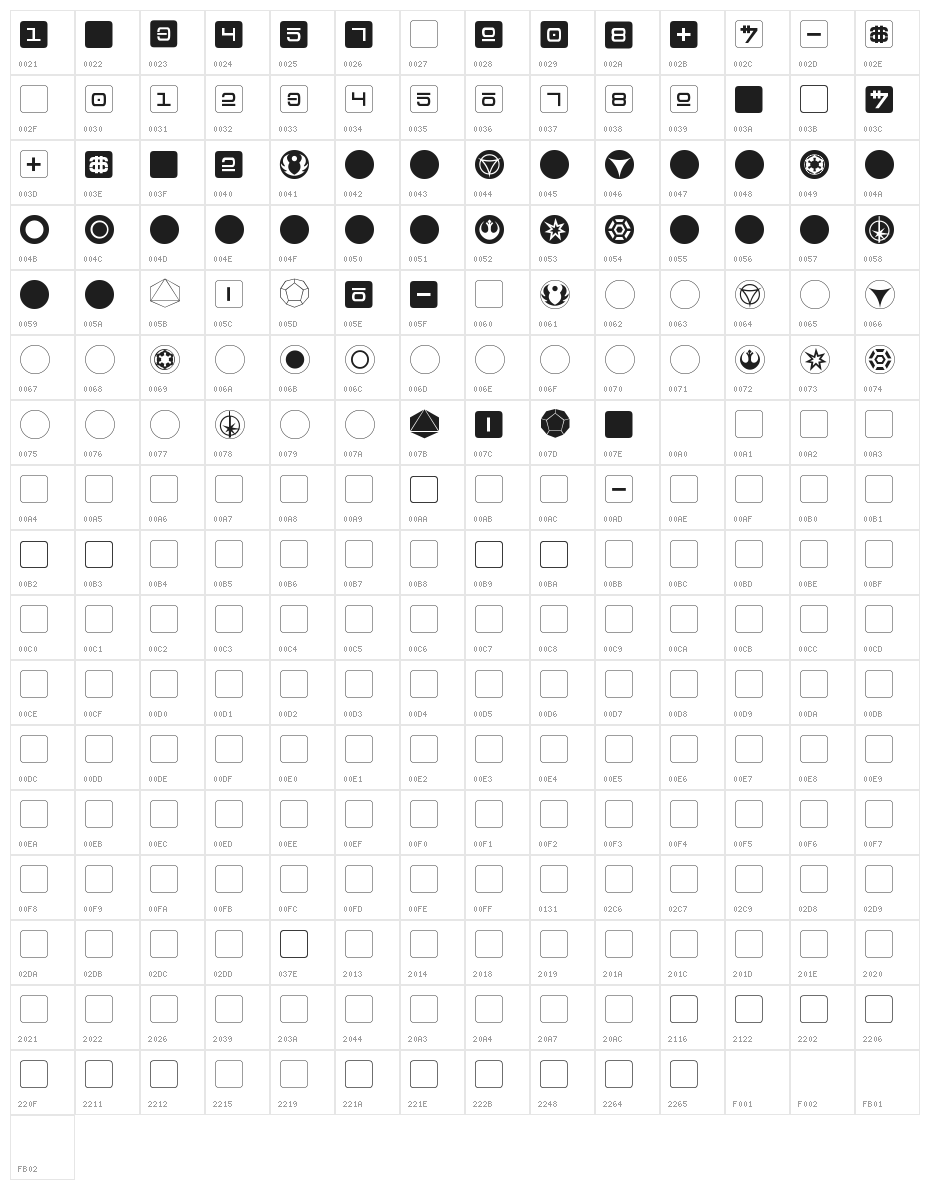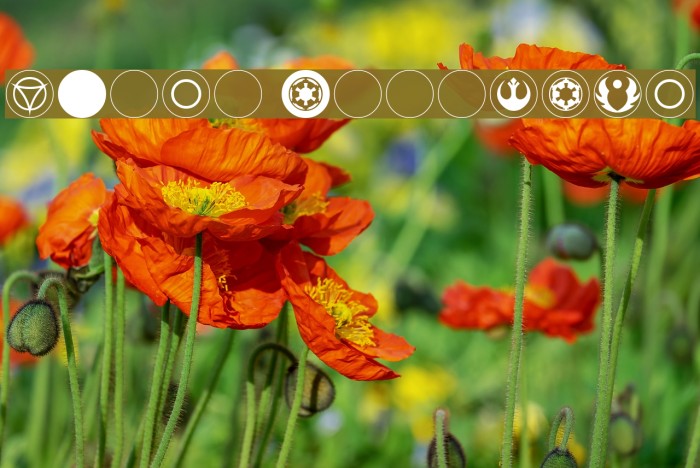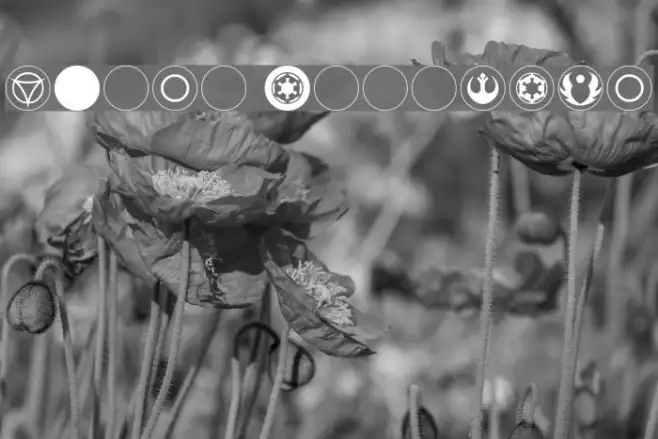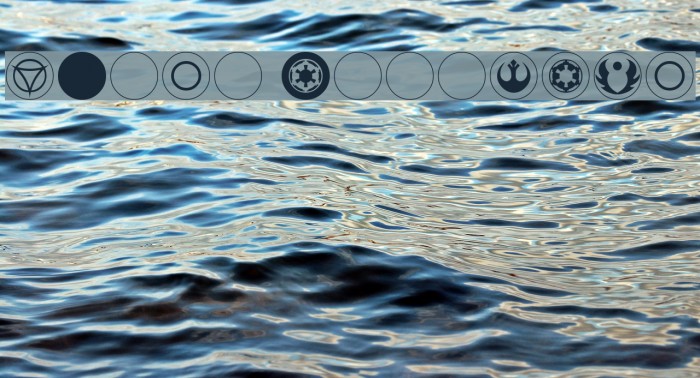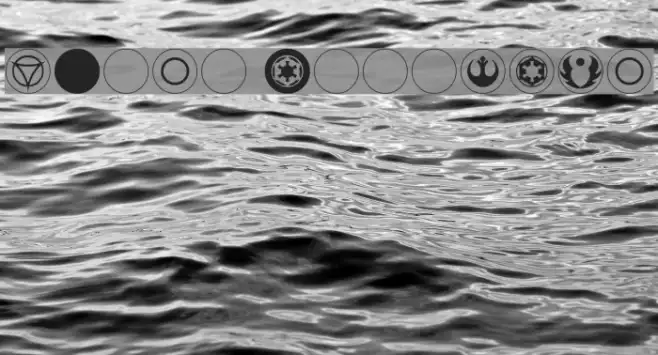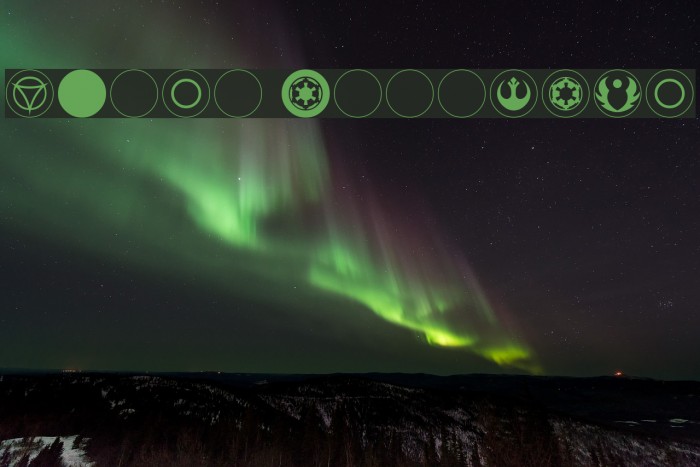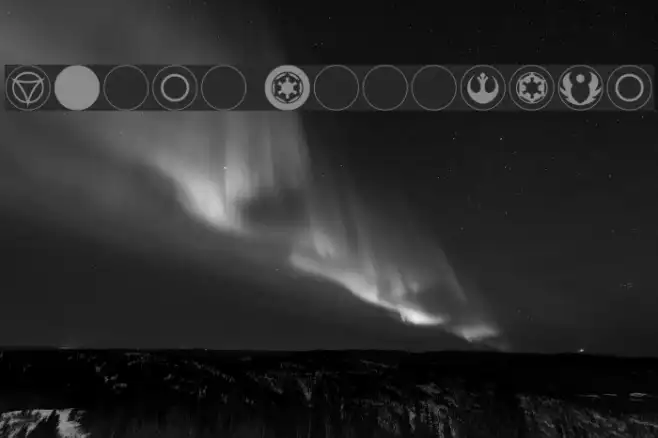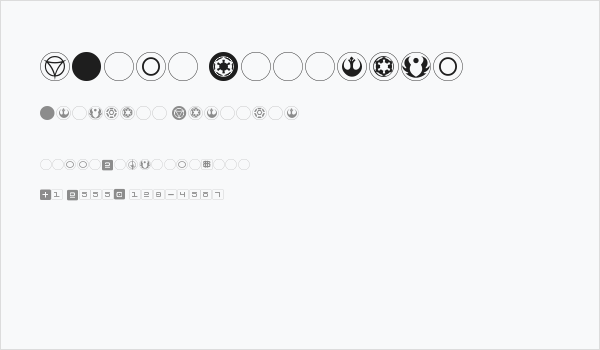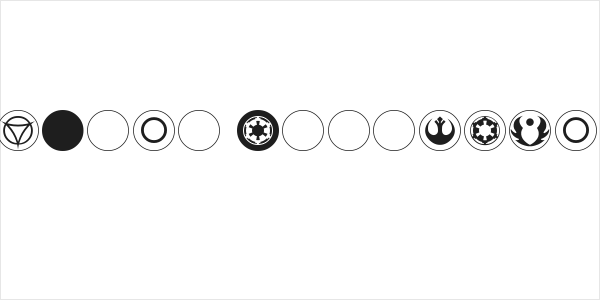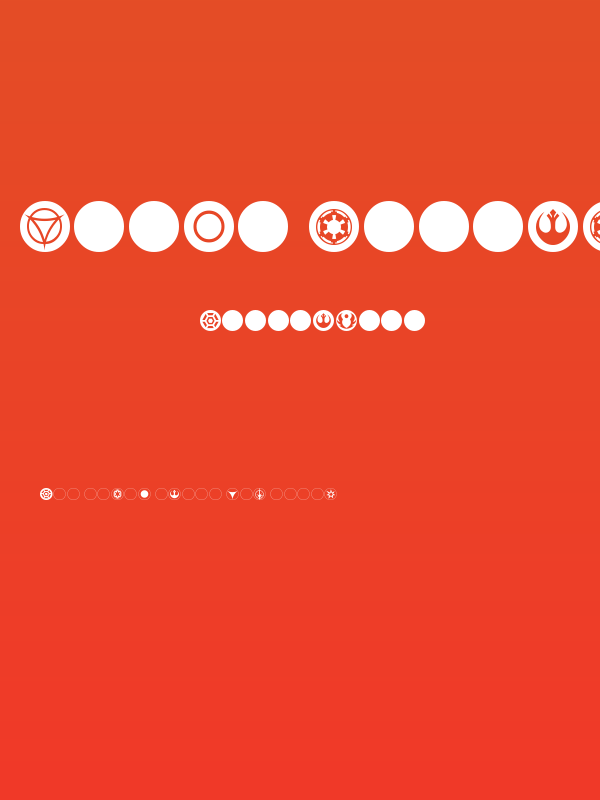
dPoly Imperial Font
dPoly Imperial Description
This set of symbols is not a traditional font but rather a collection of iconic emblems and shapes, each enclosed within circles. The designs are bold and distinct, featuring a mix of solid and outlined styles. The symbols appear to be inspired by a specific theme or universe, with each character representing a unique emblem. The numbers are presented in a squared format, with alternating filled and outlined styles, creating a visually striking contrast. This collection is more decorative and thematic, suitable for projects that require a strong visual identity.
| Use Case | Logos, Themed graphics, Merchandise |
| Proposed Projects | Ideal for themed events, merchandise, branding, or any project requiring iconic and thematic visual elements. |